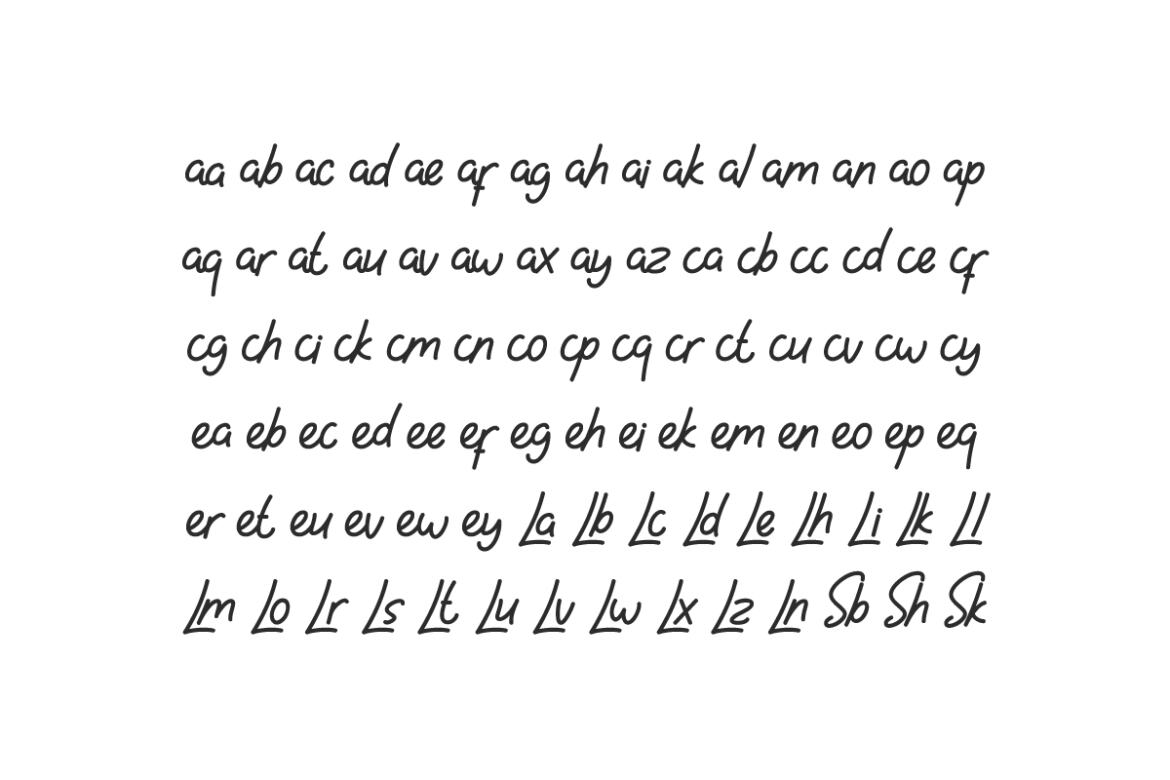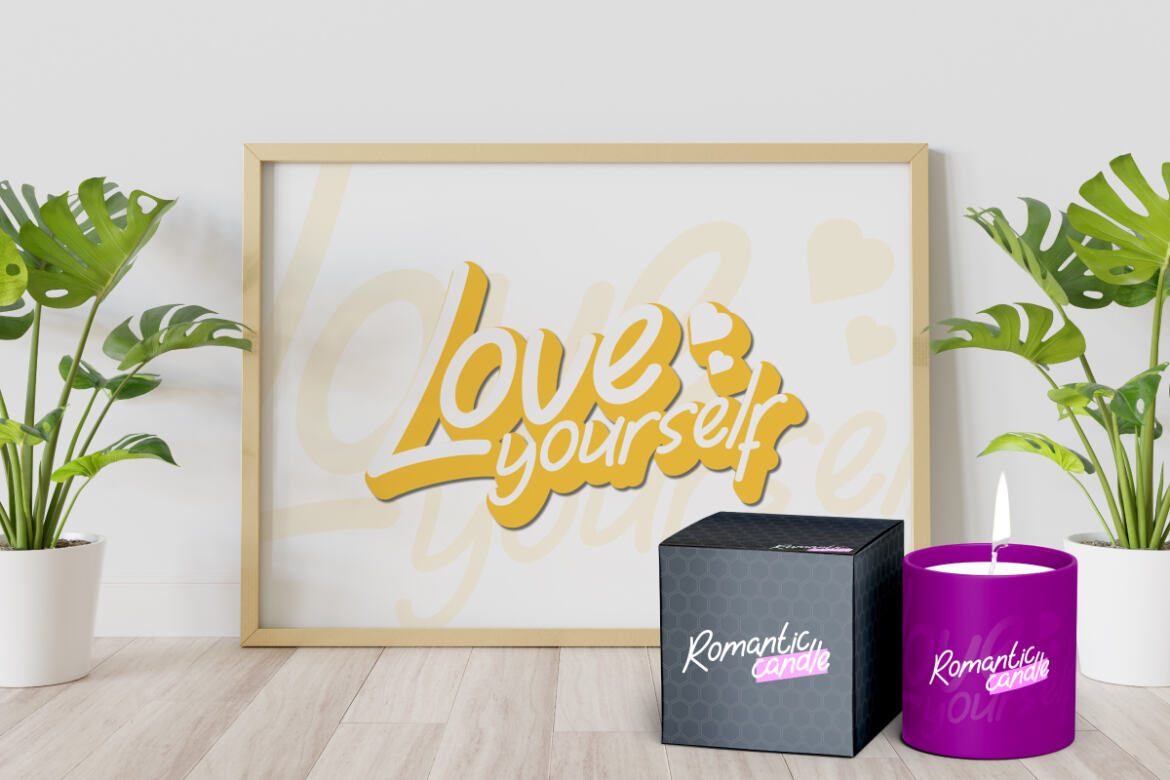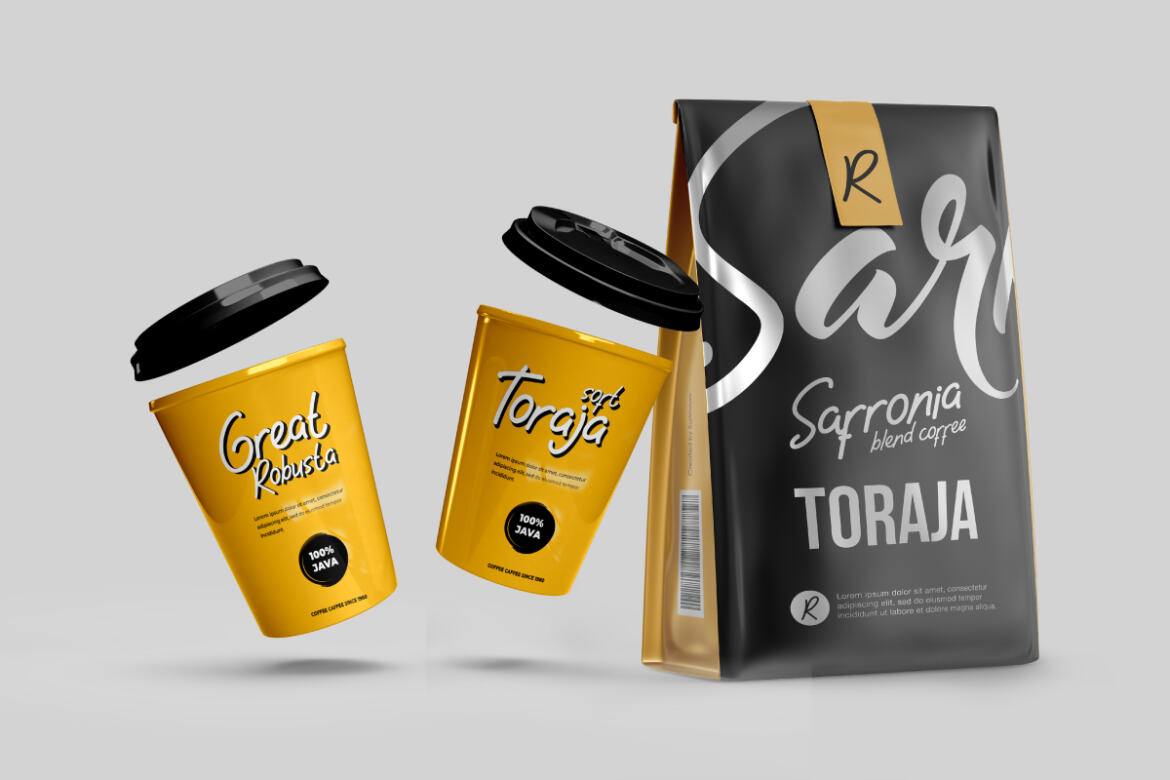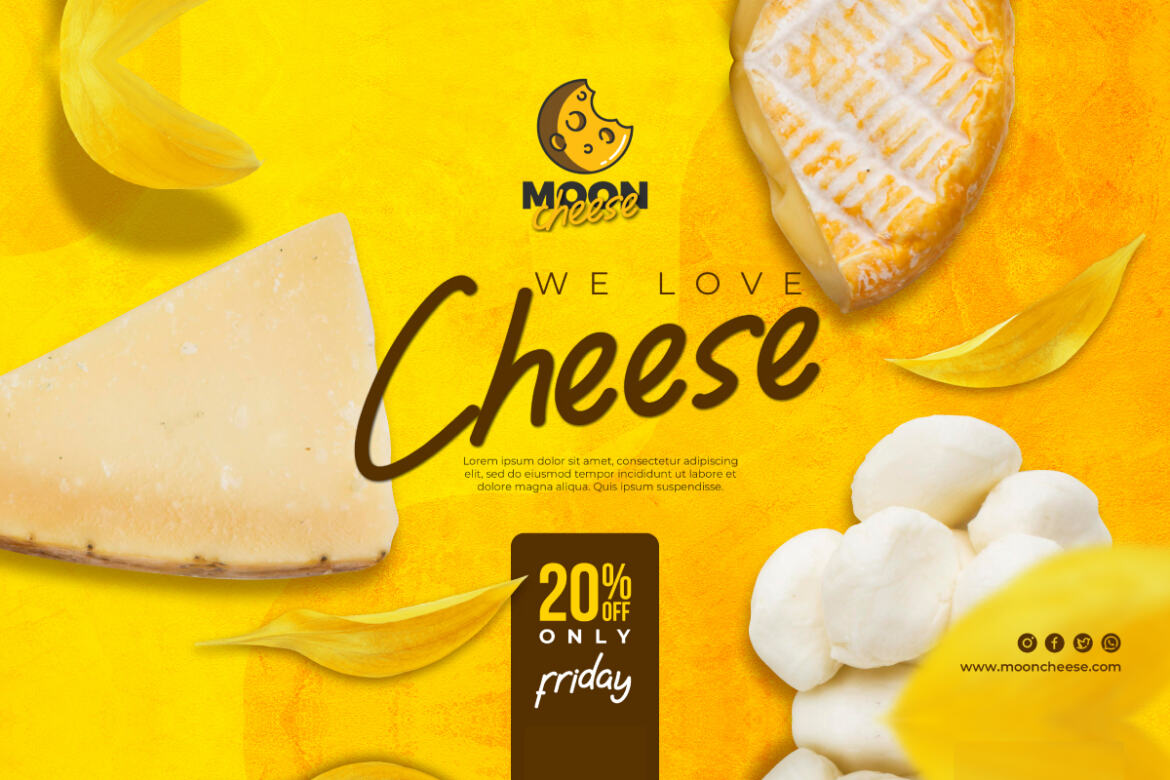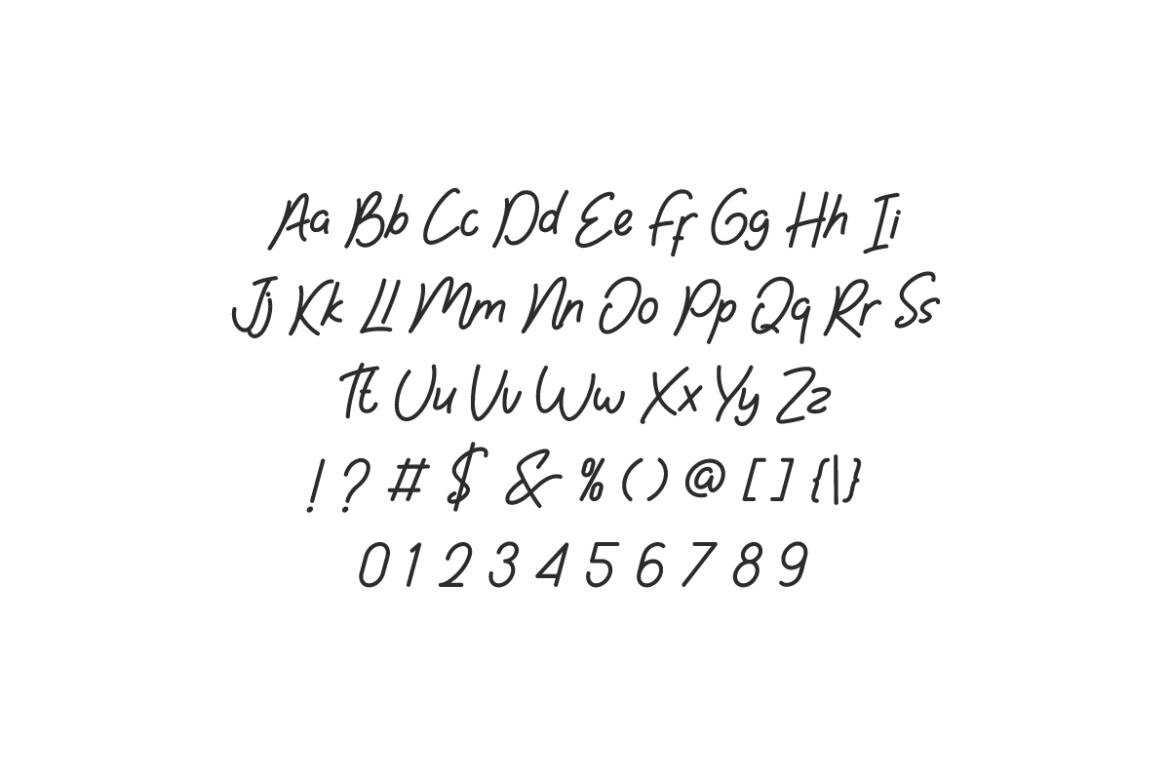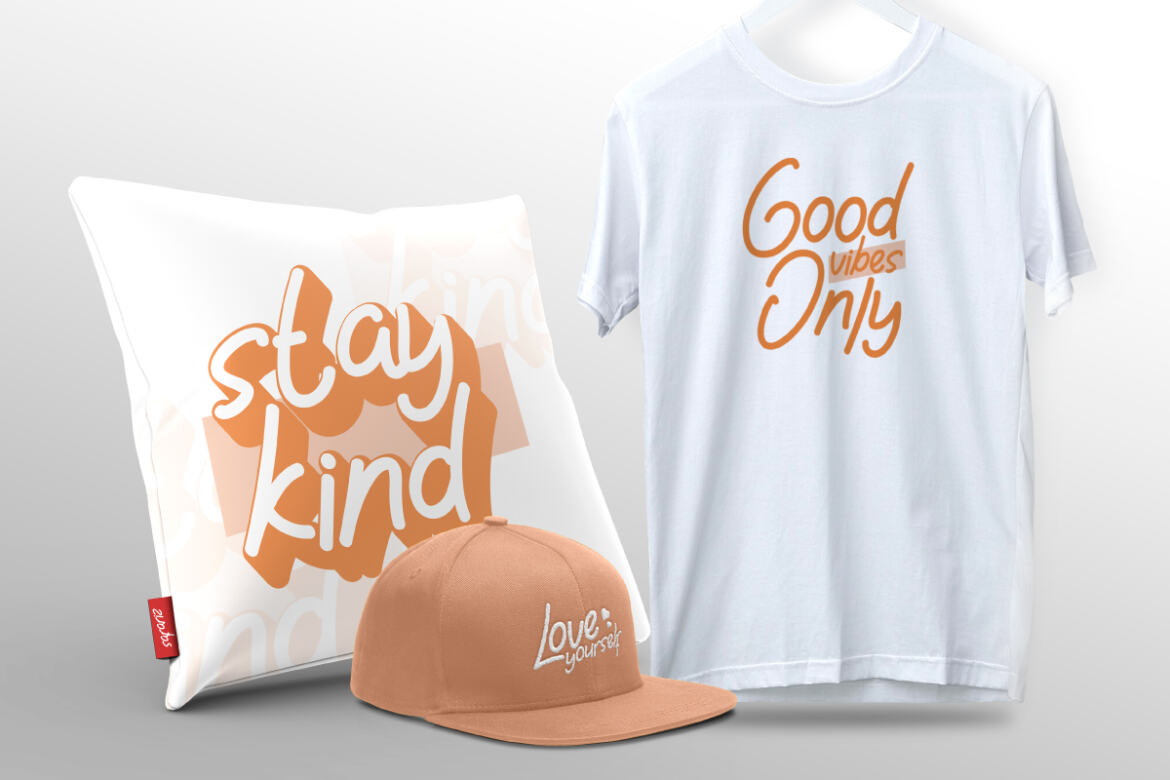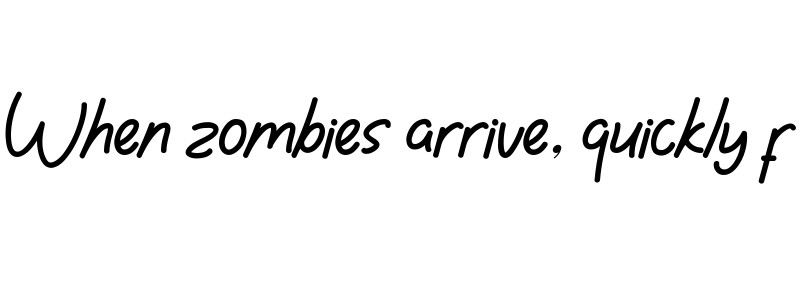
Share Now Font will be awesome for many projects (some require extended license) including : brandings, signage, flyer, website etc. The font was made in Indonesia 2021 by Our Font Designer :  Shalsa and Suci. The theme style of the font is casual and simple. The font will be match for many occasions : products, events, real estate, architect, florist, makeup artist, travel, musician etc Share Now Font had been tested Work on PC & Mac. This font has a stunning characters set, perfectly managed with well spaced and kerning.  Accessible in the Adobe Illustrator, Adobe Photoshop, Adobe InDesign, even work on Microsoft Word. It’s also PUA Encoded Characters – Fully accessible without additional design software.